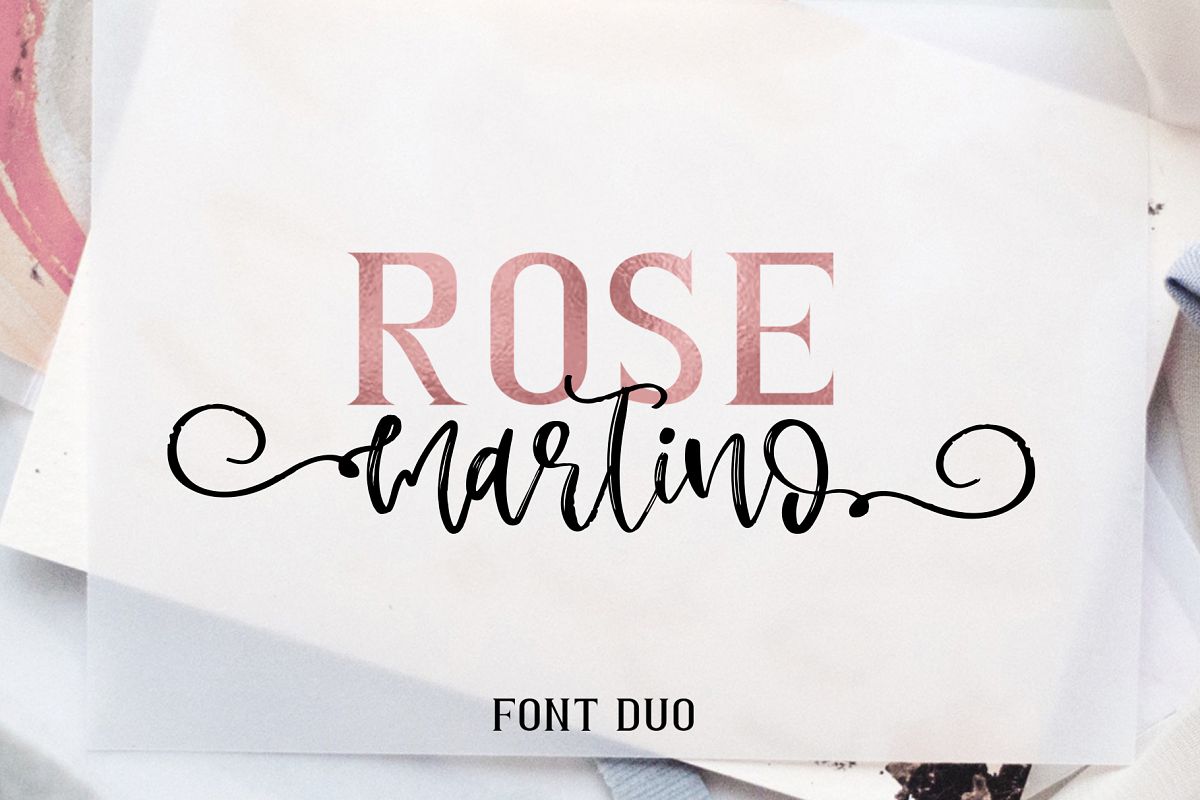
Rose Martino Font Duo
Rose Martino Font Duo - it's a modern fonts duo with Serif & textured script
Rose Martino first&last.ttf / Rose Martino first&last.otf for lowercase with swirls ( uppercase for first and lowercase for last )
Rose Martino Font Duo have multilingual support